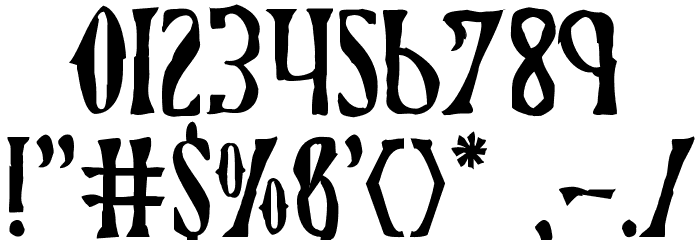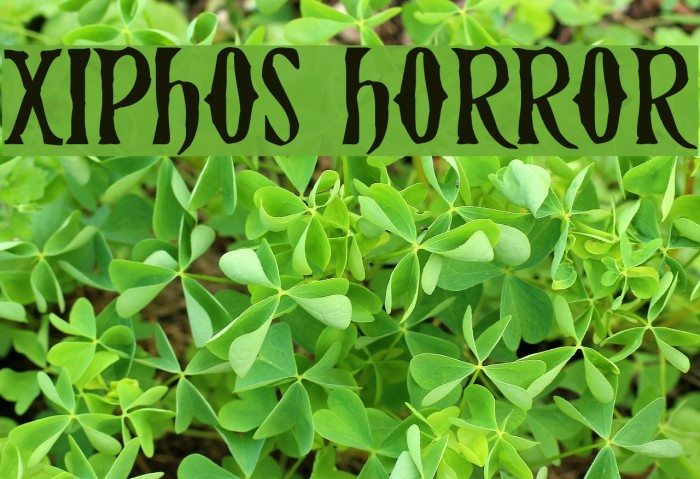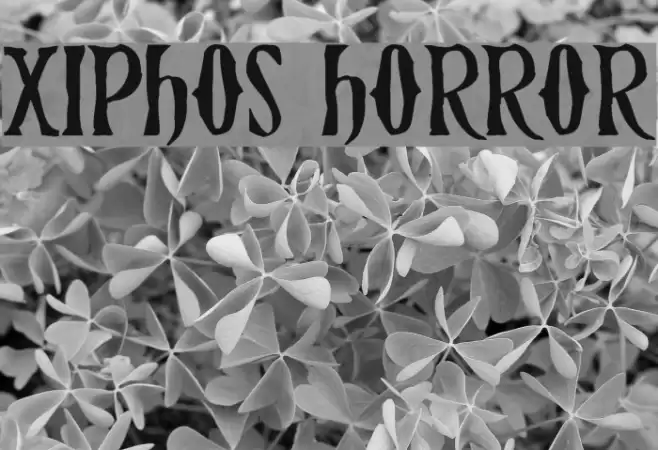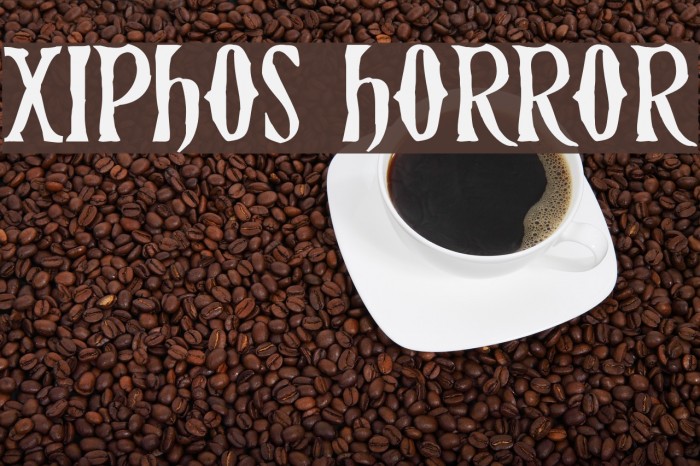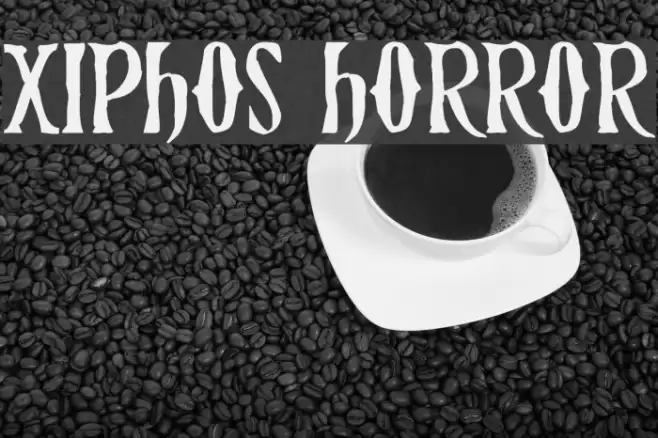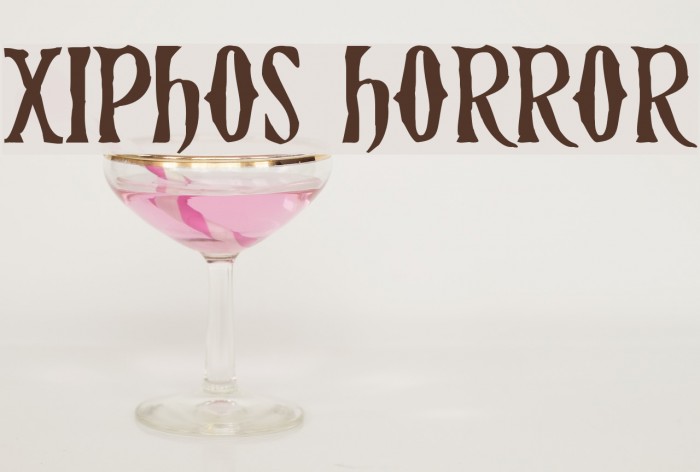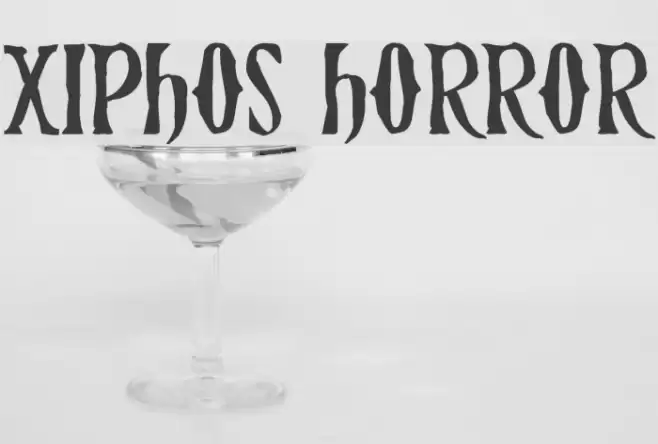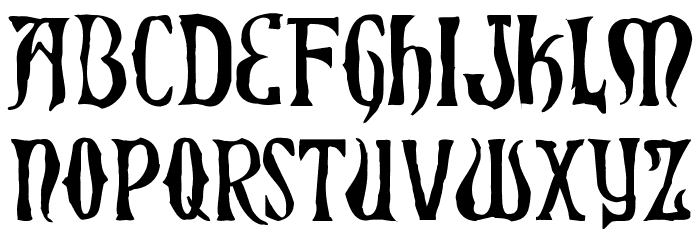
Xiphos Horror Font
Xiphos Horror Description
This font exudes a chilling and eerie aesthetic, perfect for horror-themed projects. The letters are sharply defined with jagged edges and irregular strokes, creating a sense of unease and tension. The uppercase and lowercase characters maintain a consistent style, with exaggerated serifs and pointed terminals that enhance the unsettling vibe. The numbers and special characters follow the same design principles, ensuring a cohesive look across all text elements. The overall appearance is bold and impactful, making it ideal for grabbing attention and conveying a sense of dread or mystery.
| Proposed Projects | Ideal for horror movie posters, Halloween event flyers, spooky book covers, and haunted house signage. |